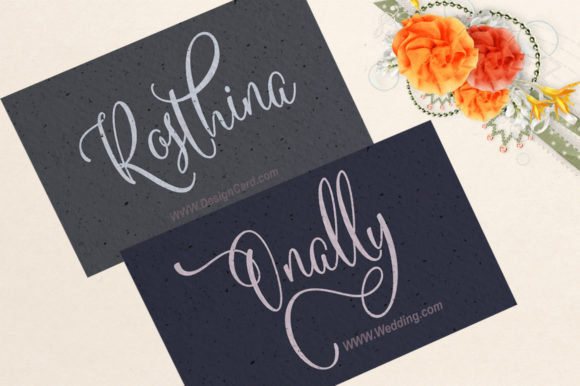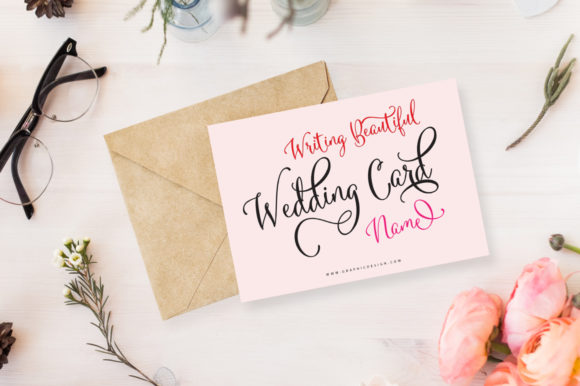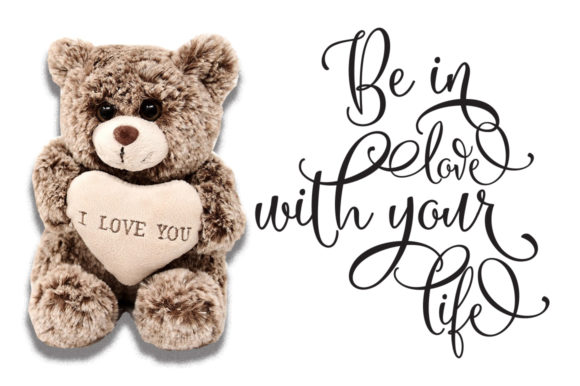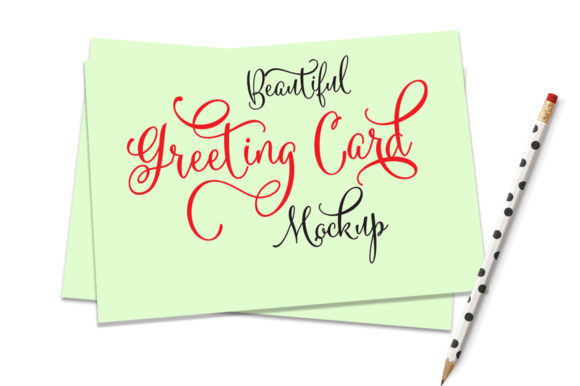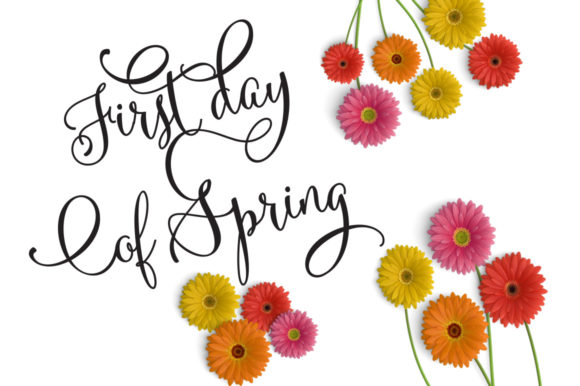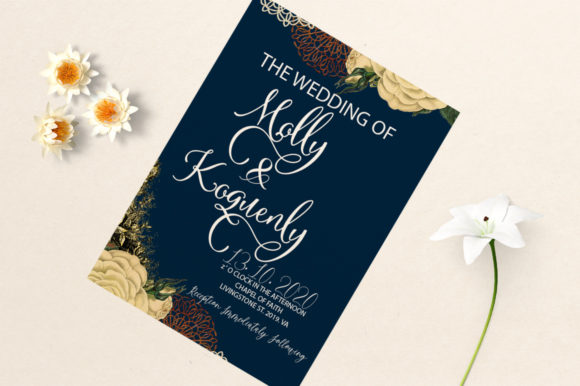
Introduction to Mountiza Font
Have you ever found yourself staring at a blank canvas, waiting for the perfect spark to ignite your creativity? For designers, moments like these are all too common. It’s the search for that elusive font that will elevate your design from ordinary to extraordinary. That’s where the Mountiza Font comes in – a unique and whimsical handwritten font that’s sure to capture your heart.
With its adorable charm and effortless style, the Mountiza Font is a game-changer for designers. Whether you’re working on a free download project or a high-quality commercial design, this font is the perfect addition to any creative project. Its transparent background and versatile design make it a valuable resource for designers looking to add a touch of whimsy to their work.
Key Features of Mountiza Font
- High-quality design for creative projects with a unique, modern aesthetic
- Transparent background, allowing for seamless integration with any design element
- Perfect design resource for graphic designers, artists, and writers seeking a stylish and versatile font
Honest Review: Mountiza Font
As a designer, I’m always on the lookout for unique and high-quality design resources to elevate my creative projects. Recently, I had the chance to try out the Mountiza Font, and I’m excited to share my thoughts on this free download.
What works well: ✨ The Mountiza Font is incredibly versatile, suitable for a wide range of design applications, from branding to packaging. Its modern and minimalist aesthetic makes it a great choice for anyone looking to add a touch of sophistication to their designs. The font also features a transparent background, which is a nice touch for designers who want to ensure seamless integration with their background elements.
Limitations: ⚠️ One of the limitations of the Mountiza Font is that it may not be as extensive as some other font collections. While it’s perfect for simple designs, it may not be the best choice for more complex projects that require a wide range of font styles.
Overall, I’m impressed with the Mountiza Font. Its high-quality design and versatility make it a valuable resource for any designer working on a creative project. Whether you’re a seasoned pro or just starting out, this font is definitely worth checking out.
- Perfect for simple designs and branding projects
- Modern and minimalist aesthetic
Mountiza Font Overview
Mountiza Font is a high-quality design resource suitable for various creative projects. It is available for free download, making it an excellent addition to any design collection.
Mountiza Font is commonly used in logo design, branding, and creative marketing materials. Its high quality and transparent background make it an excellent choice for layered designs.
To get the most out of Mountiza Font, experiment with different font sizes, colors, and layering techniques. This will help you unlock its full potential and create unique designs.